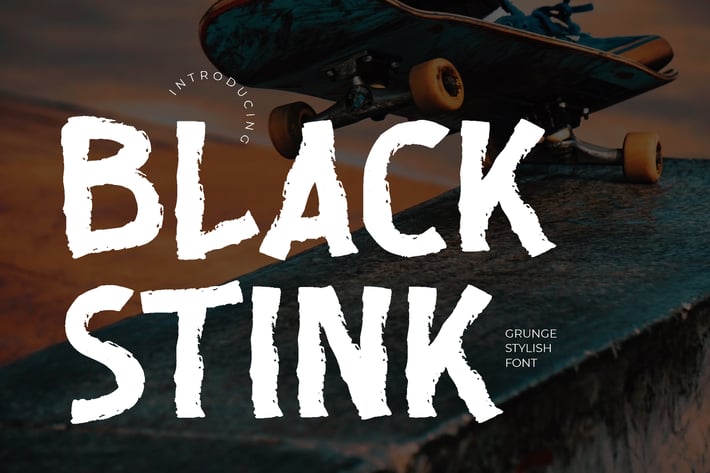
Black Stink Advertisement Font
Black Stink is natural dry brush font. It’s perfect for logos, quotes, posters, playful lettering, for clothing, and every other design which needs an unique touch.